As a designer, I believe typography is one of the most powerful elements of a luxury brand identity. In this collection, I selected 18 premium elegant fonts that combine sophistication, minimalism, and modern fashion aesthetics. These typefaces are perfect for luxury fashion brands, beauty packaging, editorial layouts, logos, and high-end visual identities. I personally use fonts like these to create timeless and refined designs that feel premium, stylish, and memorable in 2026 trends.
Rionaldo Angelo Font
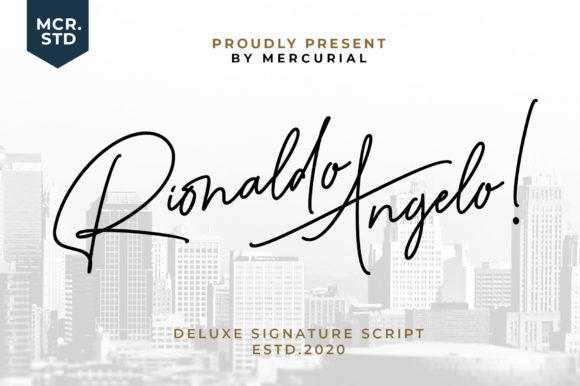
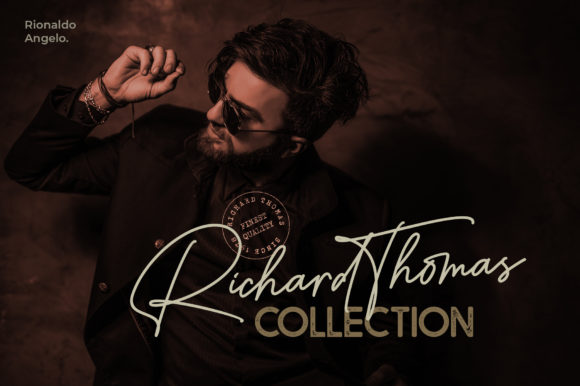
I like Rionaldo Angelo to express elegance through smooth handwritten details and refined calligraphic beauty. Its classy yet contemporary style gives every design a sophisticated and fresh appearance, making it incredibly versatile for creative projects. I love using this font for letterheads, branding, stationery, titles, invitations, and modern designs that deserve a graceful and luxurious touch.
Stigma Font
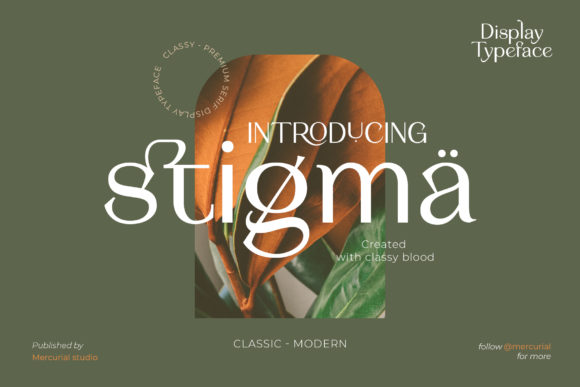
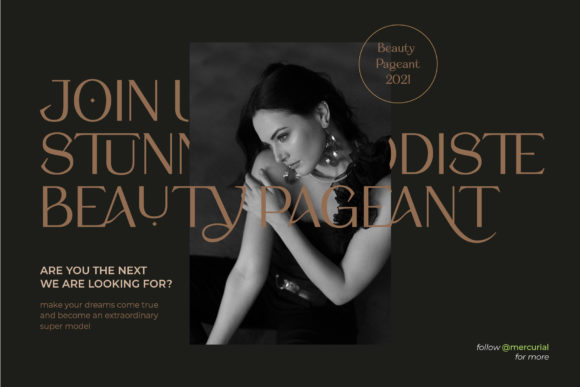
Stigma is a modern display font that combines bold style with clean readability, making it perfect for eye-catching creative projects. I enjoy using it for branding, posters, logos, packaging, social media graphics, and headlines because its trendy lettering feels fresh and professional. The strong contemporary design gives every project a stylish visual impact that instantly grabs attention.
Ontime Font
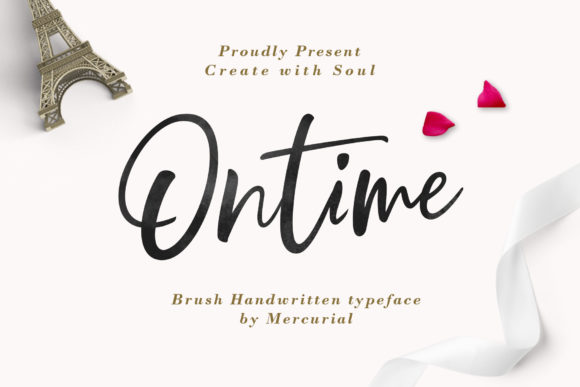
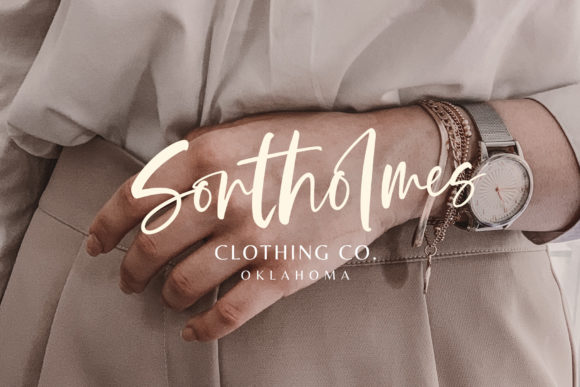
I use Ontime in my design projects when I want elegant script typography with a refined contemporary feel. Inspired by timeless classic calligraphy, its balanced strokes and graceful curves help me create sophisticated branding, wedding invitations, packaging, and editorial layouts. I also appreciate its PUA encoding, which gives me easy access to stylish glyphs and swashes for more detailed and expressive compositions.
Rellista Script Font
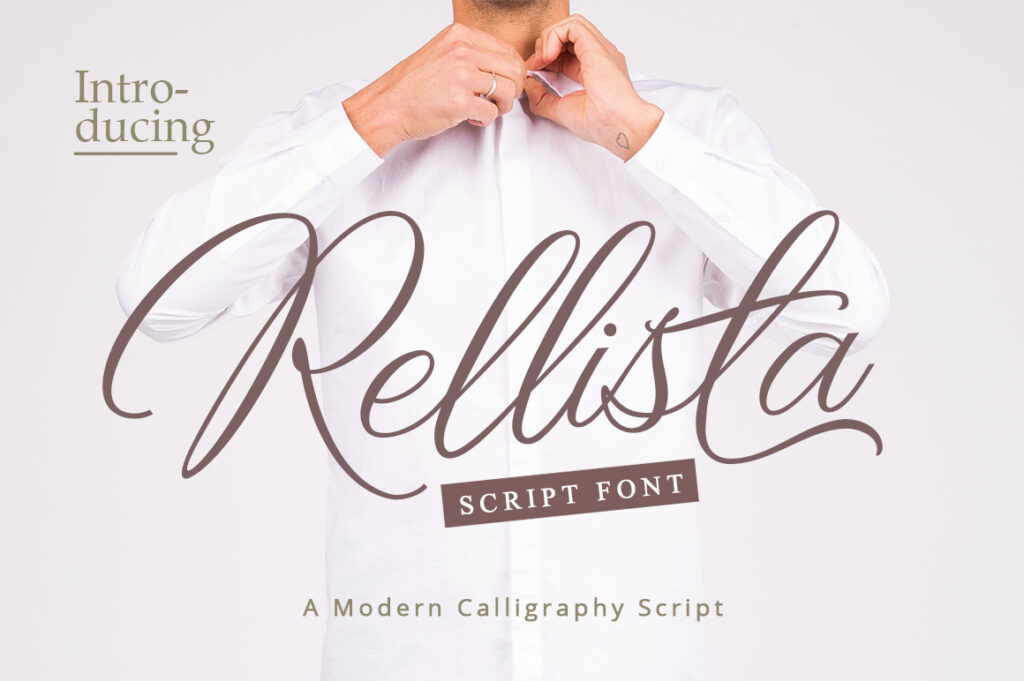
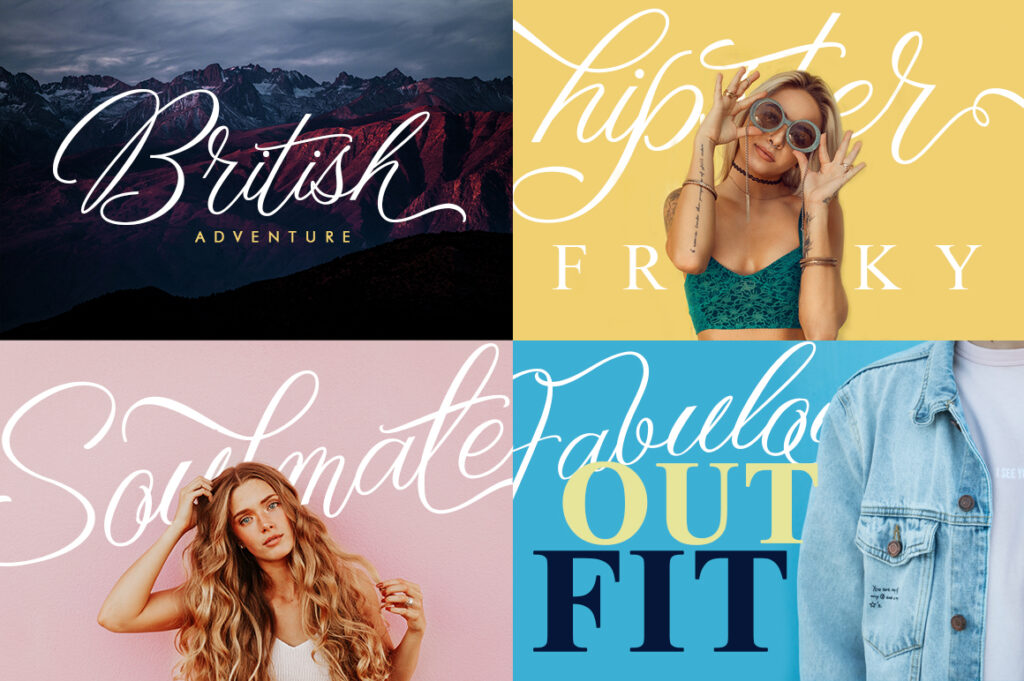
Rellista is a stunning modern script font that adds elegance and sophistication to any creative project. I love using it for branding, wedding invitations, logos, packaging, and social media graphics because its stylish handwritten lettering feels fresh and luxurious. The smooth flowing strokes and contemporary calligraphy style make every design look refined, eye-catching, and professionally crafted.
Bridgetown Font
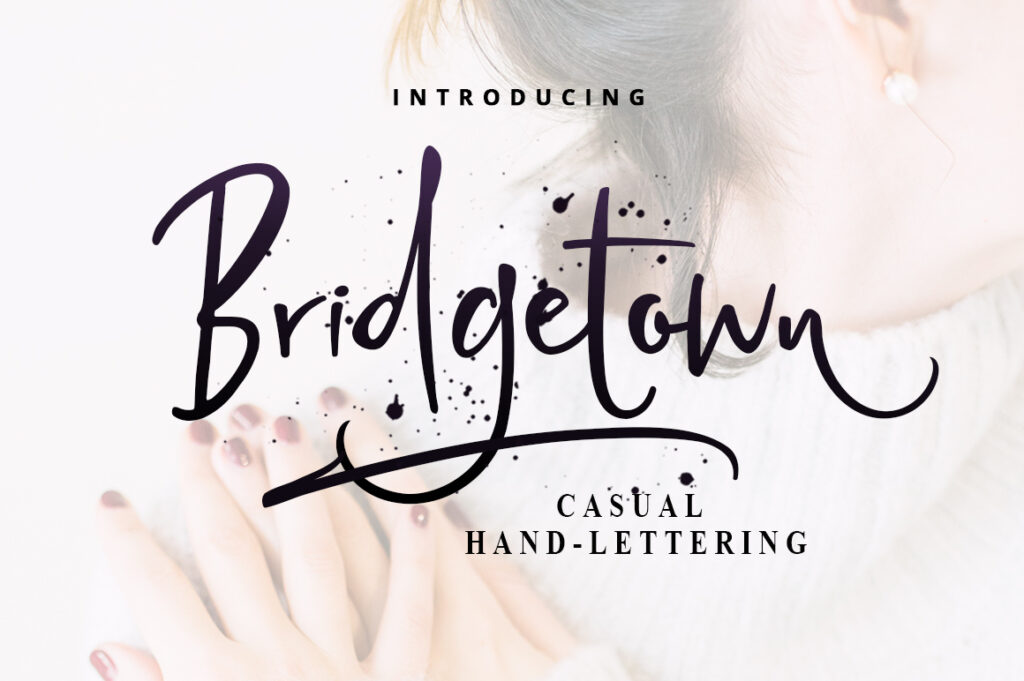
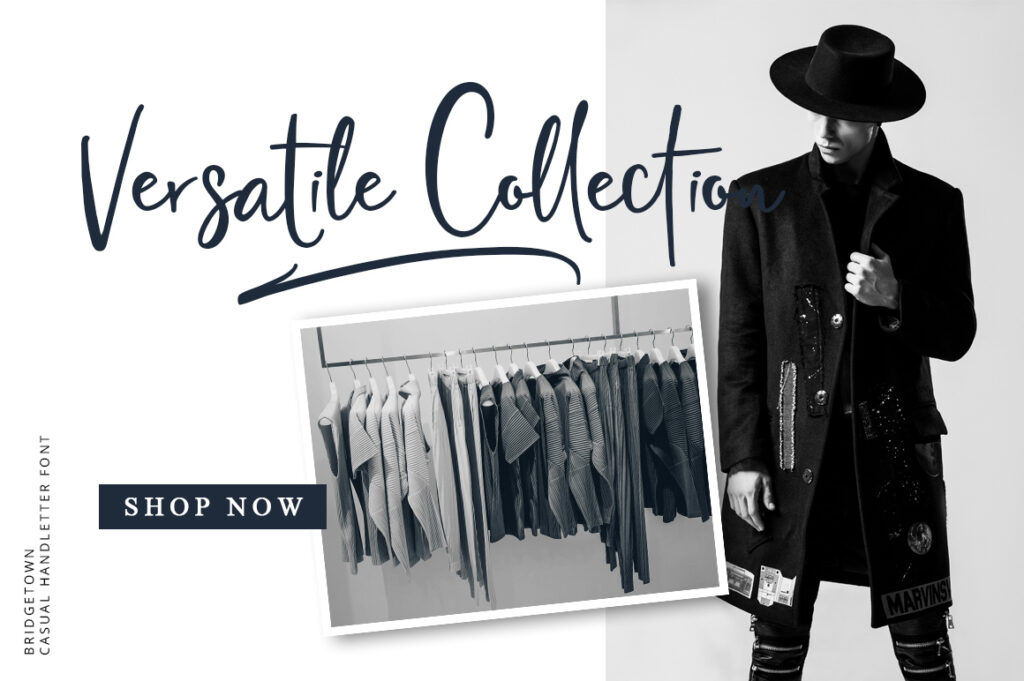
Bridgetown is an elegant script font that instantly gives designs a luxurious and sophisticated feel. I enjoy using it for wedding invitations, branding, logos, packaging, and editorial projects because its graceful handwritten style feels timeless and versatile. The smooth curves and charming calligraphy details make every design look refined, stylish, and beautifully professional.
Carrolina Font
Carrolina Font Duo is a beautiful combination of elegant script and modern sans serif typography that works perfectly for stylish creative projects. I love using it for branding, wedding invitations, logos, packaging, and social media graphics because the romantic calligraphy paired with the clean sans font creates a balanced and sophisticated look. This font duo adds charm, elegance, and a modern luxury feel to every design.
Elegant Font
Elegant Font is a stylish typeface that brings sophistication and luxury into any creative project. I love using elegant fonts for branding, wedding invitations, logos, fashion designs, packaging, and editorial layouts because their graceful curves and refined lettering create a timeless aesthetic. The smooth lines and classy appearance instantly make every design feel polished, modern, and visually captivating.
Wintersnow Font
I use Wintersnow, a flowing handwritten font with an elegant touch, in my design projects. Its distinct and timeless style helps me create refined visuals that feel soft yet expressive. I often choose it for invitations, branding, and creative layouts where I want a graceful, handcrafted feel.
Advantage Font
I use Advantage, an enchanting handwritten script, in my design projects when I want a balance between classic elegance and a friendly, approachable feel. Its expressive character helps me create original and standout visuals across branding, invitations, and creative layouts. I also value its PUA encoding, along with the alternate glyphs and ligatures, which give me the freedom to craft more detailed and personalized typography.
Designer Font
I use Designer, a simple and casual display font with an undeniably clean feel, in my design projects. Its neat and beautifully arranged letters help me create visuals that feel balanced and professional, whether I’m working on branding, posters, or digital content for clients. I rely on it when I need clarity and modern simplicity in my layouts.
Andutione Font
I use Andutione in my design projects when I want typography that feels delicate, elegant, and sophisticated. Its graceful script style helps me create refined branding, invitations, packaging, and social media visuals with a fresh and modern touch. I also enjoy its PUA encoding, which gives me easy access to beautiful glyphs and ligatures for more creative and expressive typography.